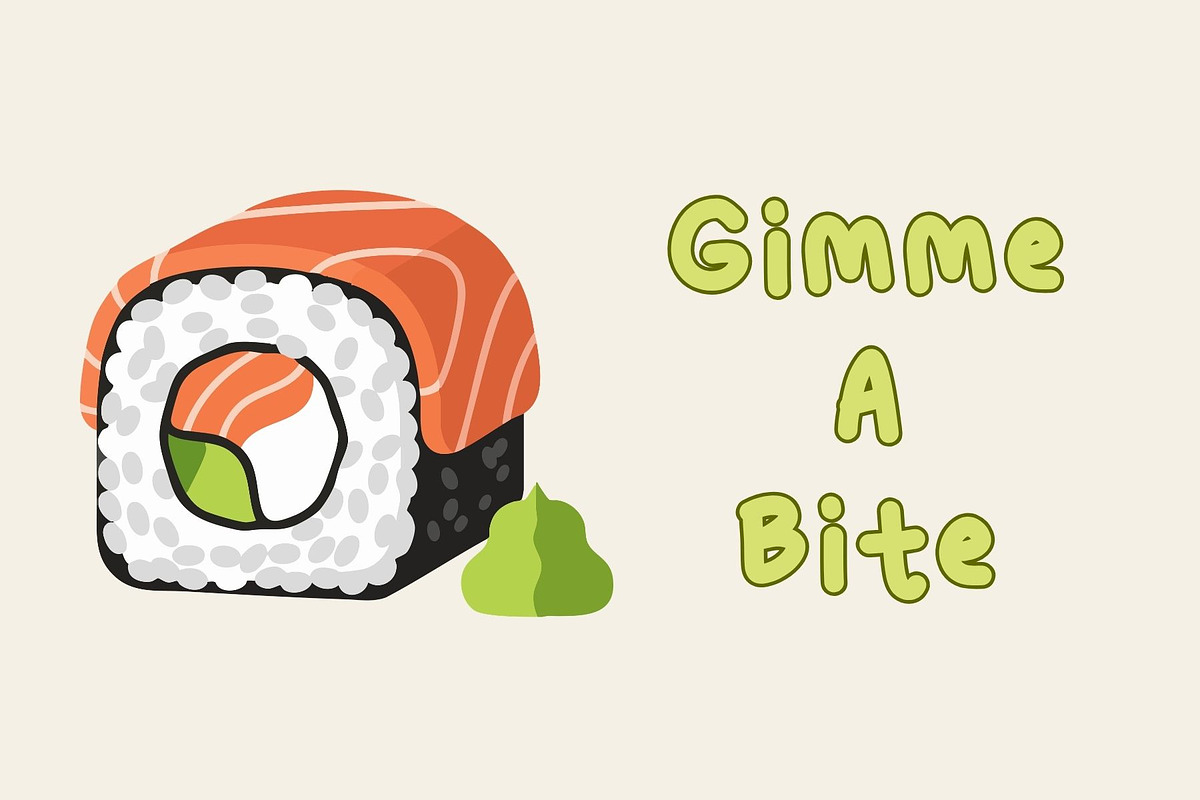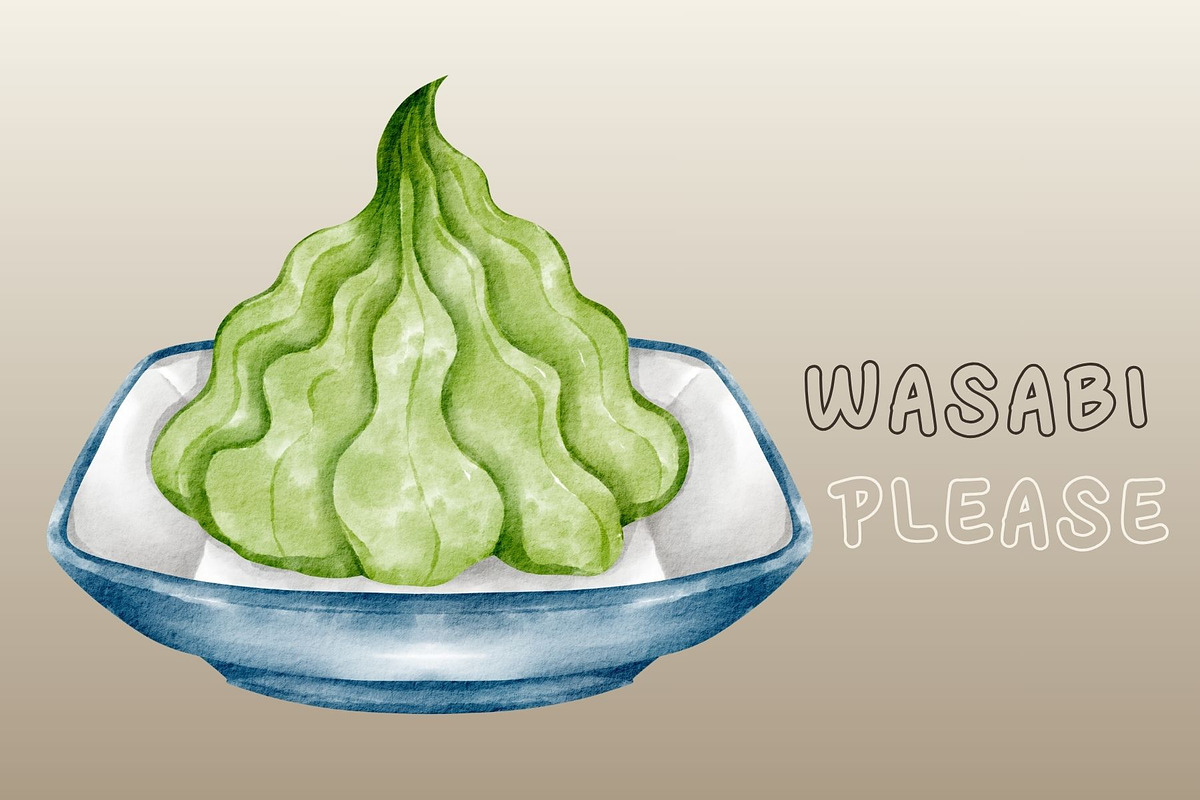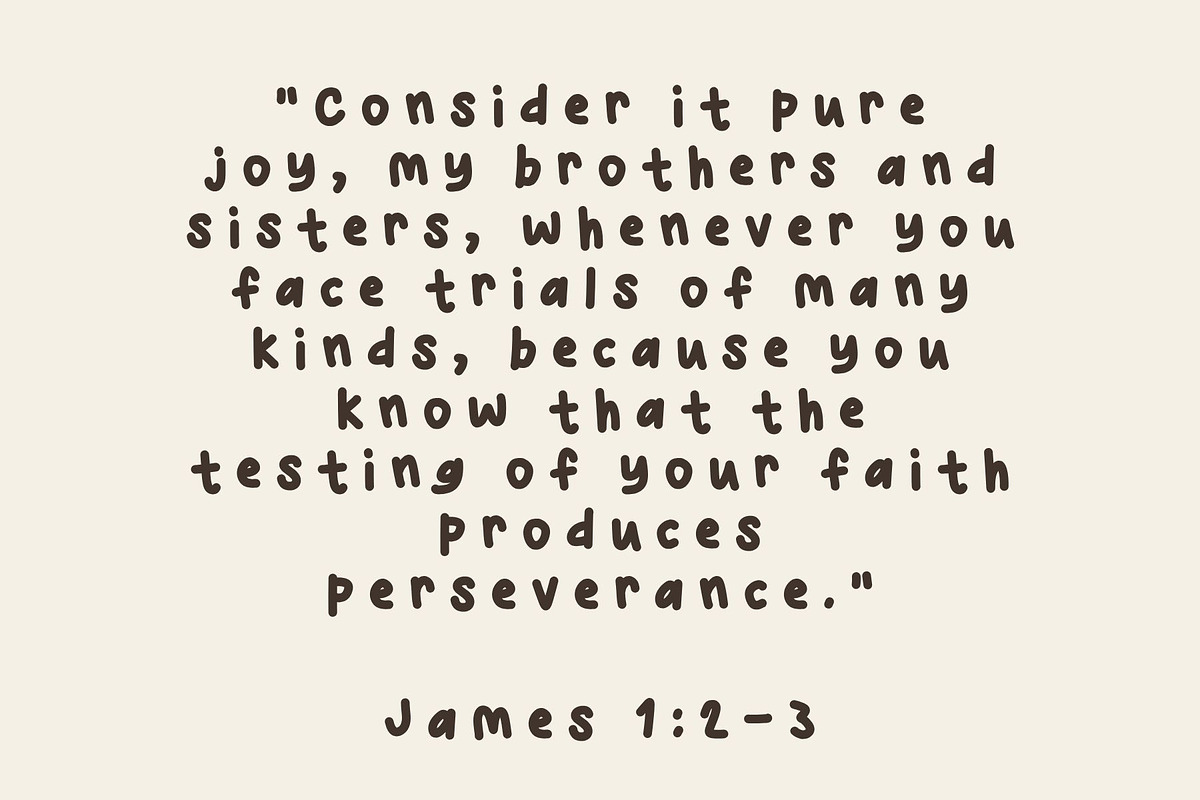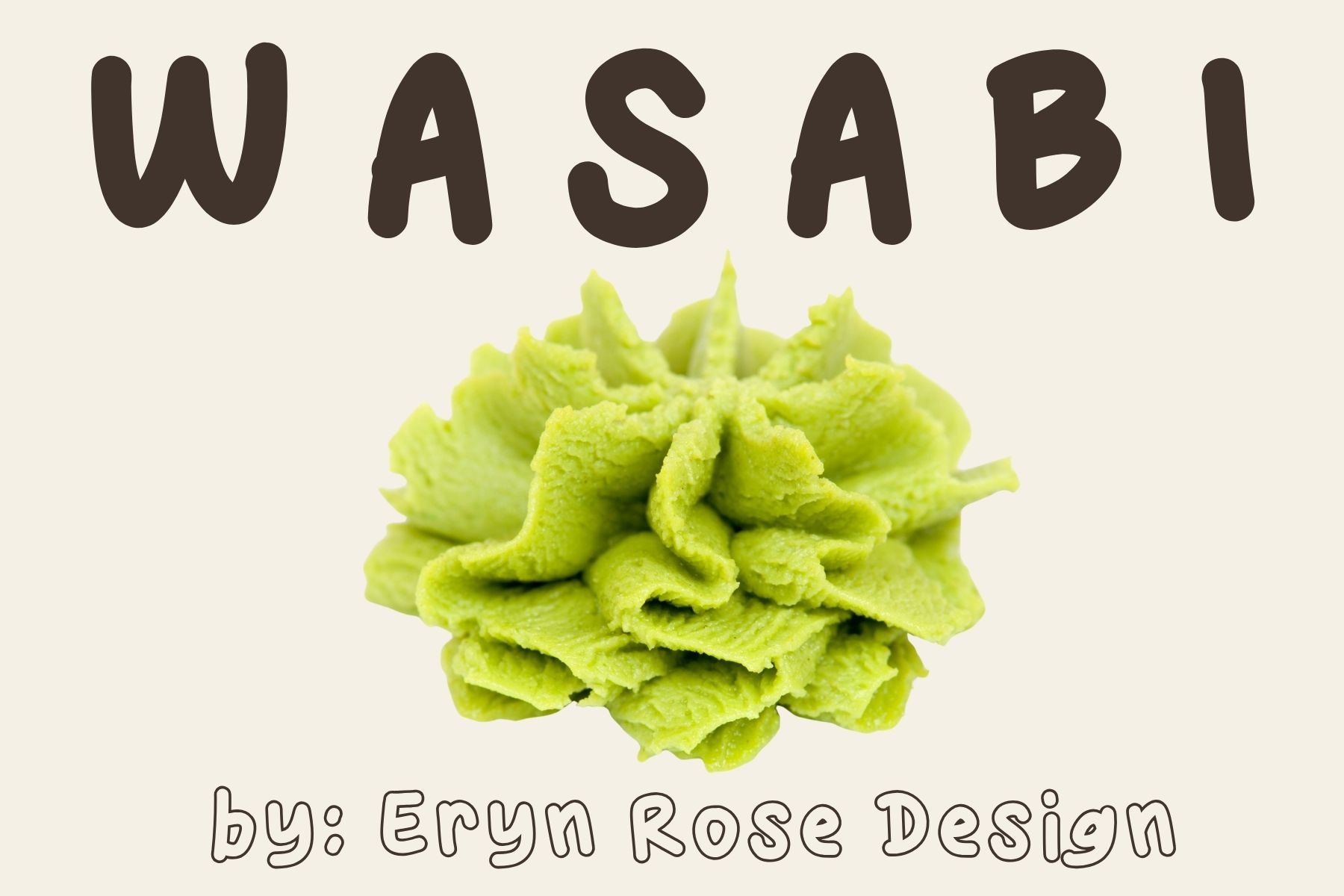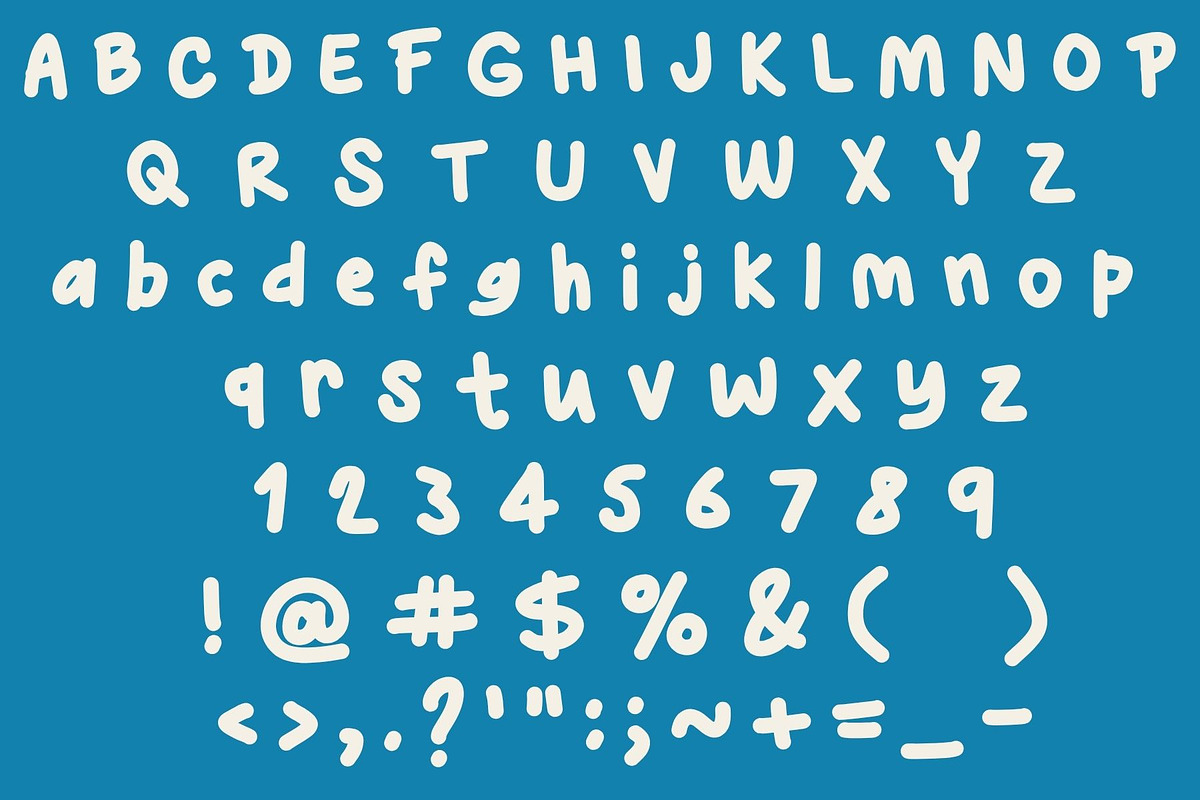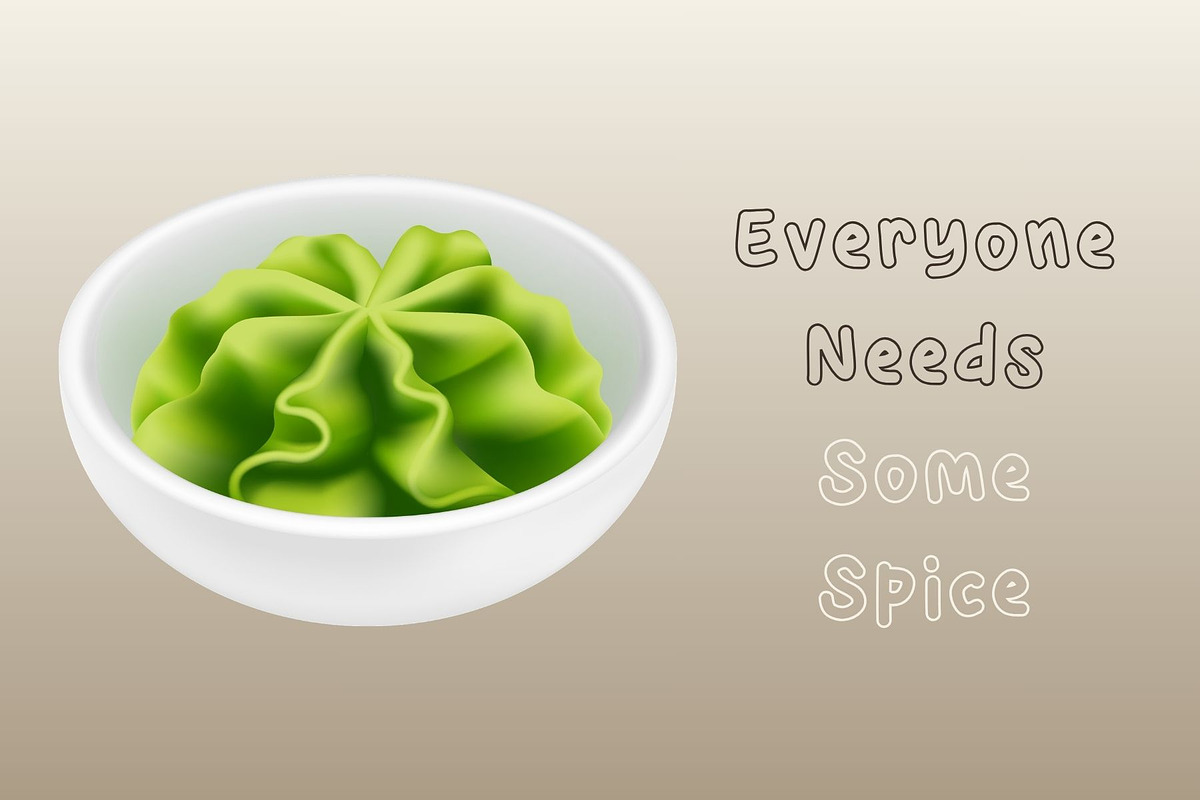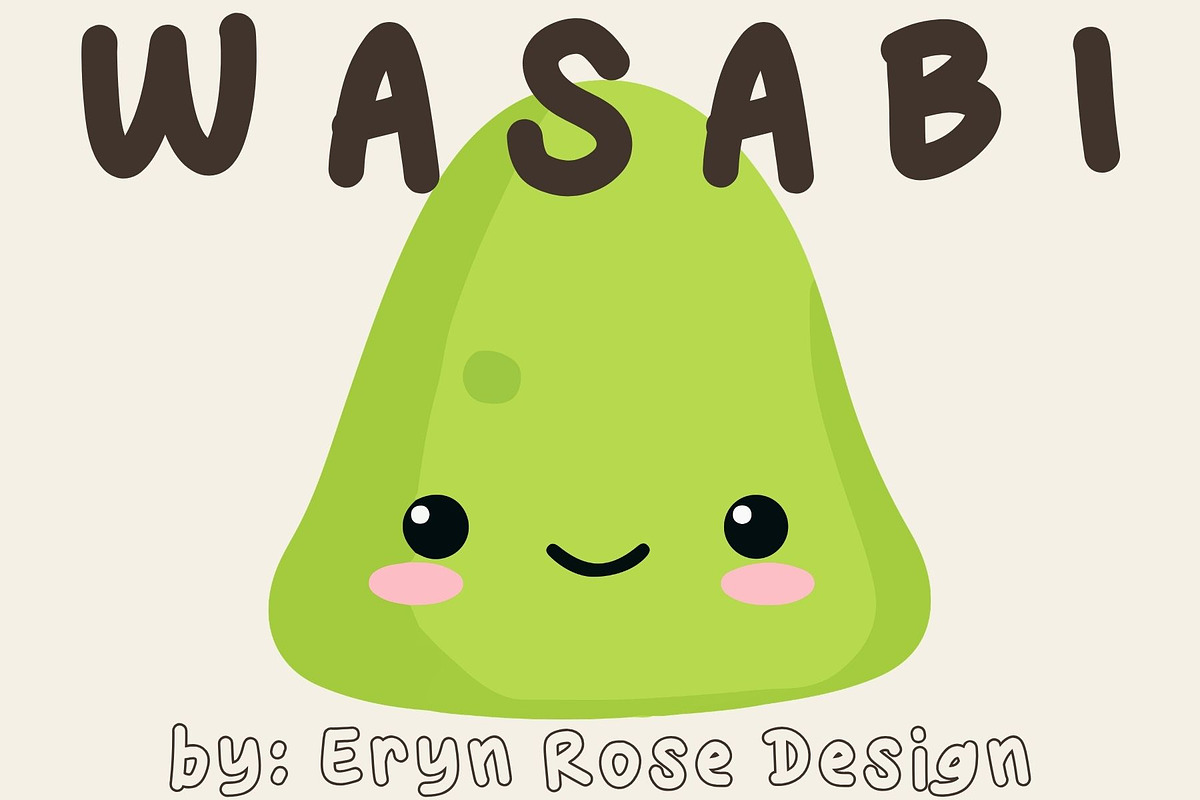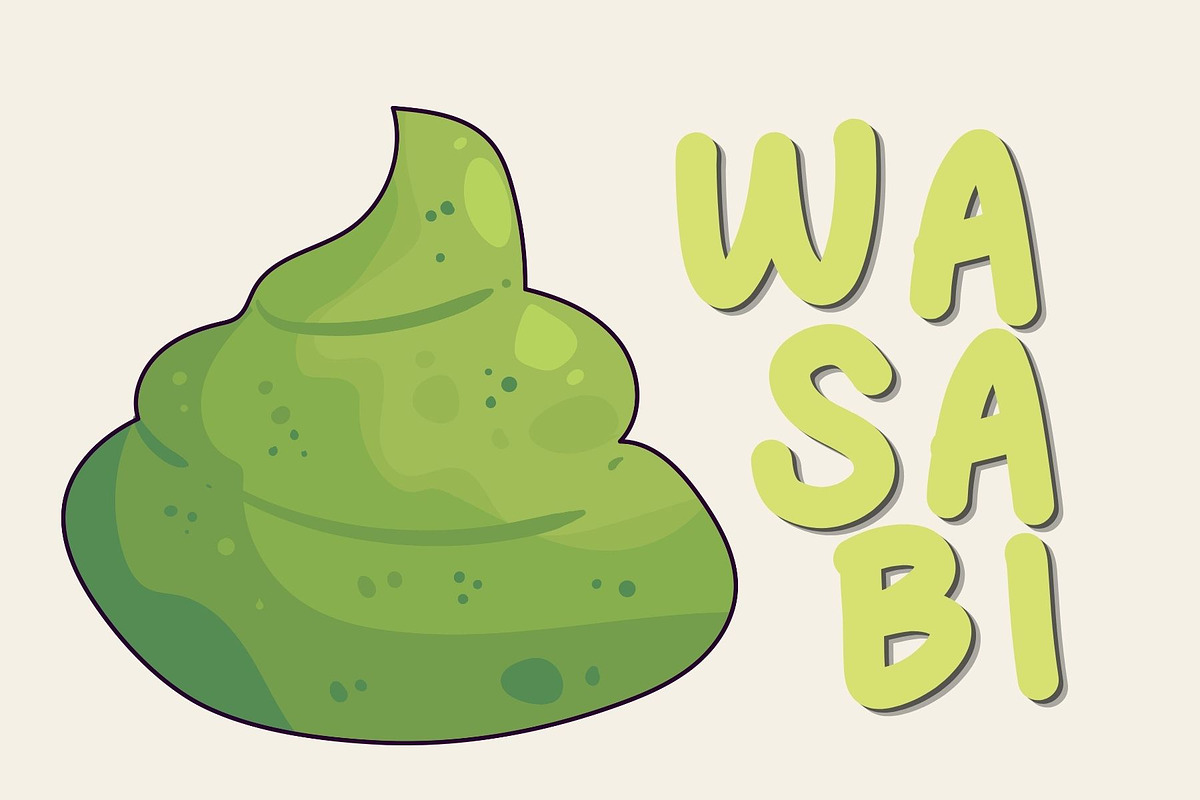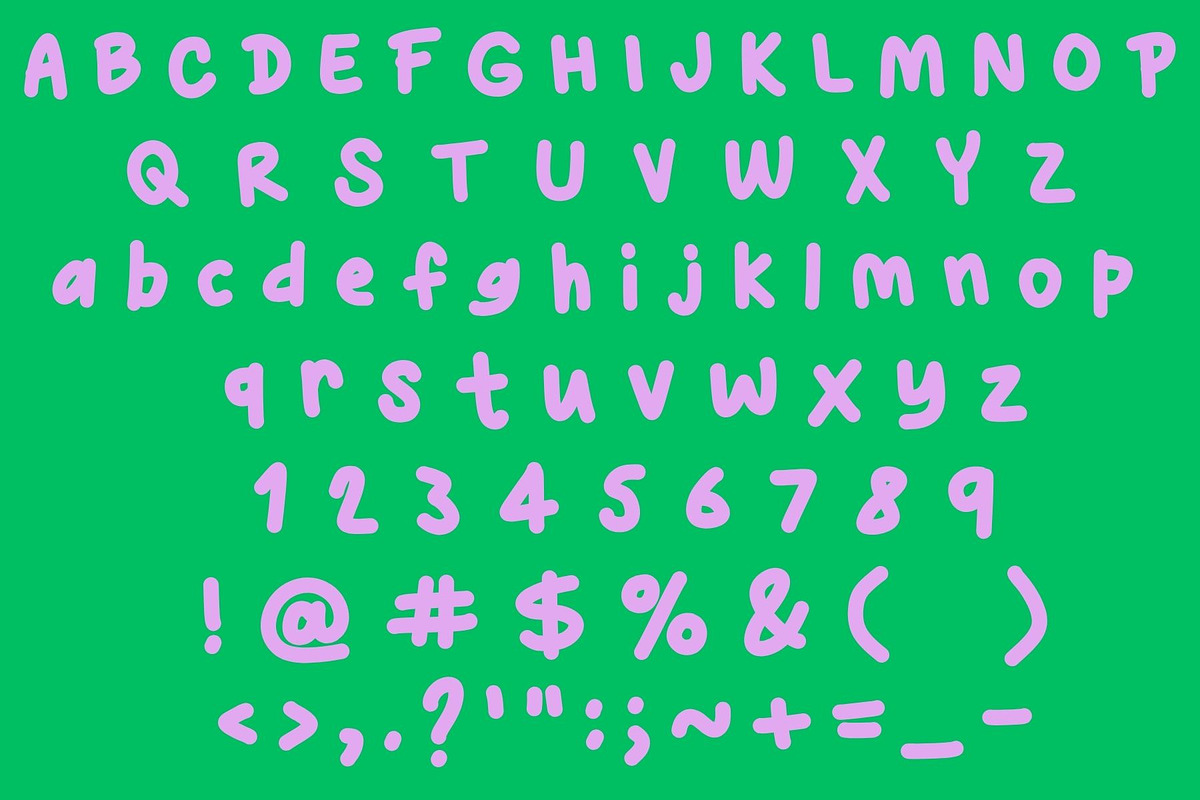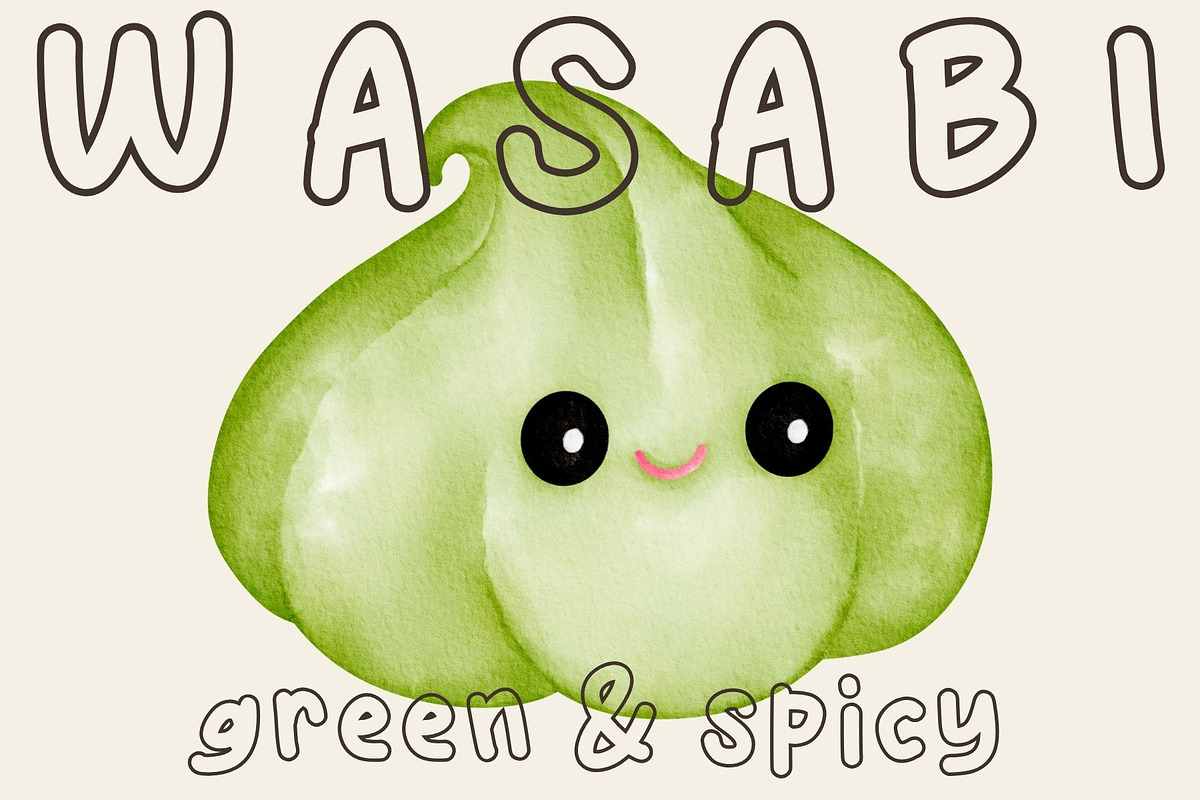
Wasabi a hand-lettered Bubbly Font
full alphabet, numbers, and standard symbols
Wasabi is a clean, hand-drawn font that embodies a modern bubbly aesthetic. Infused with a lively spirit, this typeface adds a touch of excitement to your designs. It features a classic bubble letter style, retaining the charming imperfections that make handmade typography so captivating. Versatile in its application, Wasabi can be used in outline mode, with shadows, in neon styles, or adjusted in size to fit your needs. As a standout Display font, it excels in event and poster design, logo creation, and trendy merchandise branding. With Wasabi, your creative projects are sure to shine!